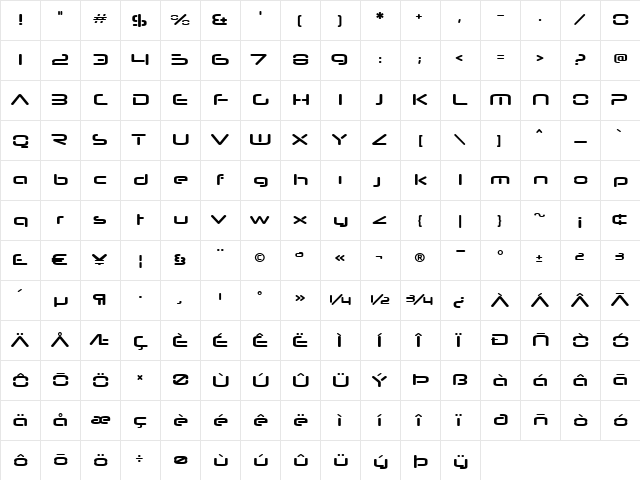
Neuropol Nova Xp Bold
Design Context for Neuropol Nova Xp Typeface
Neuropol Nova Xp offers clean, dependable letterforms without strong stylistic allegiance, making it a practical choice for designers who need flexibility. Its bold stroke weight gives it real presence on the page.